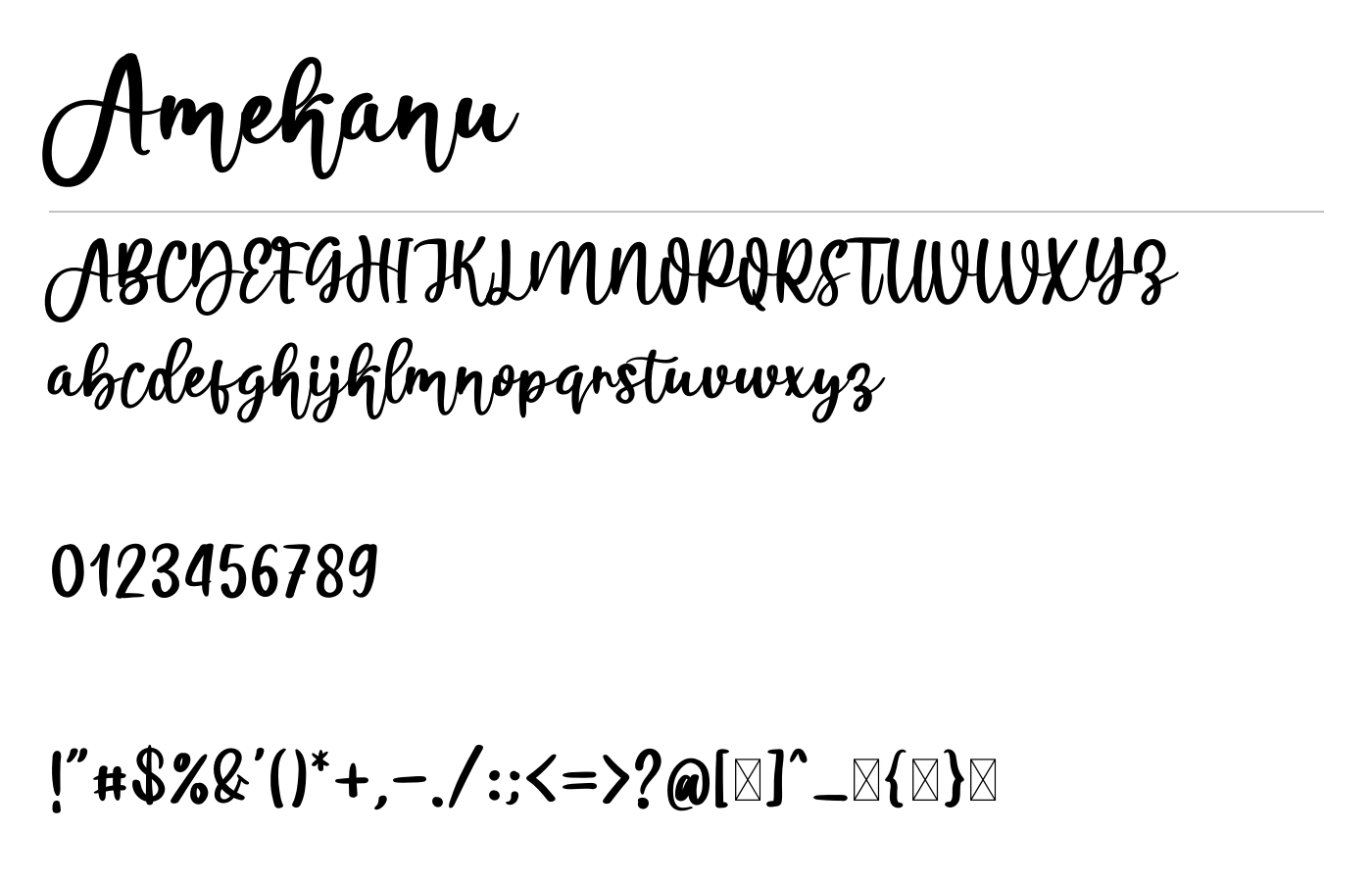
Amekanu is a lively and elegant script font with smooth, flowing strokes that give it a hand-lettered feel. Its medium weight and balanced proportions make it perfect for adding a warm, personal touch to invitations, branding, and headlines. With its playful yet refined style, Amekanu works beautifully in creative projects that need a friendly and stylish handwritten look.
Amekanu Font
About Amekanu Font